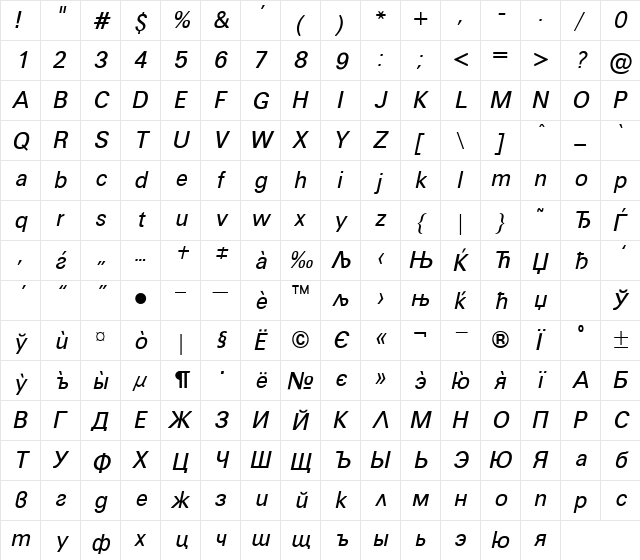
UnvCyr Italic
Design Context for UnvCyr Typeface
UnvCyr is a composed and adaptable typeface that performs quietly and consistently across a wide range of design contexts. The dynamic lean of this cut emphasises speed and emphasis in any layout.
Pro Tip: Use UnvCyr for emphasis, pull quotes, and subheadings where its slanted energy can add rhythm to the layout.